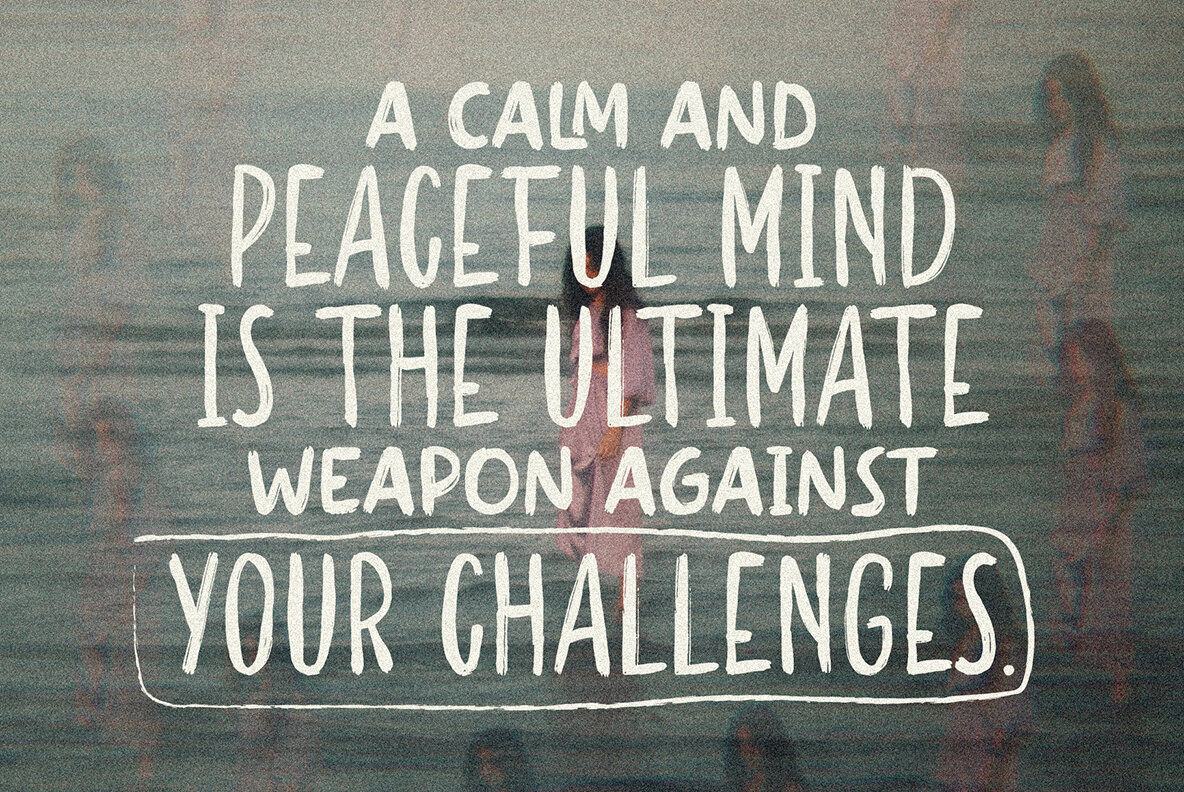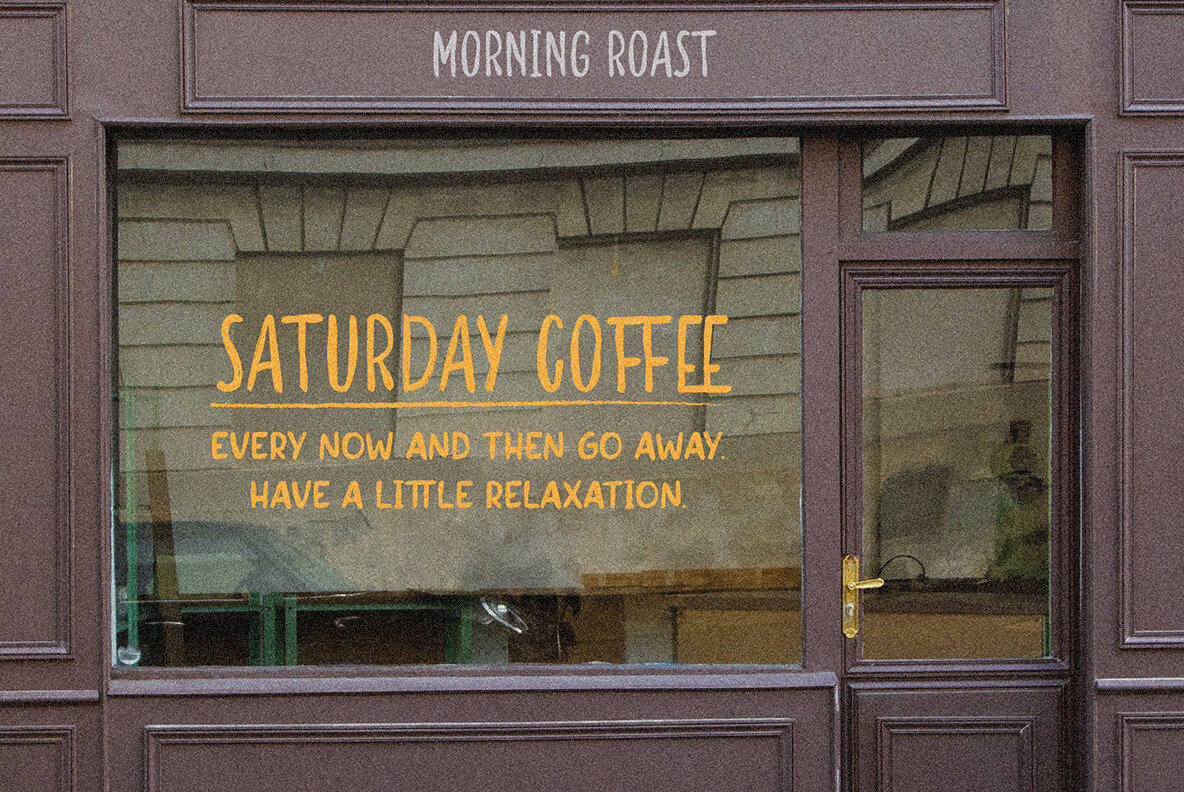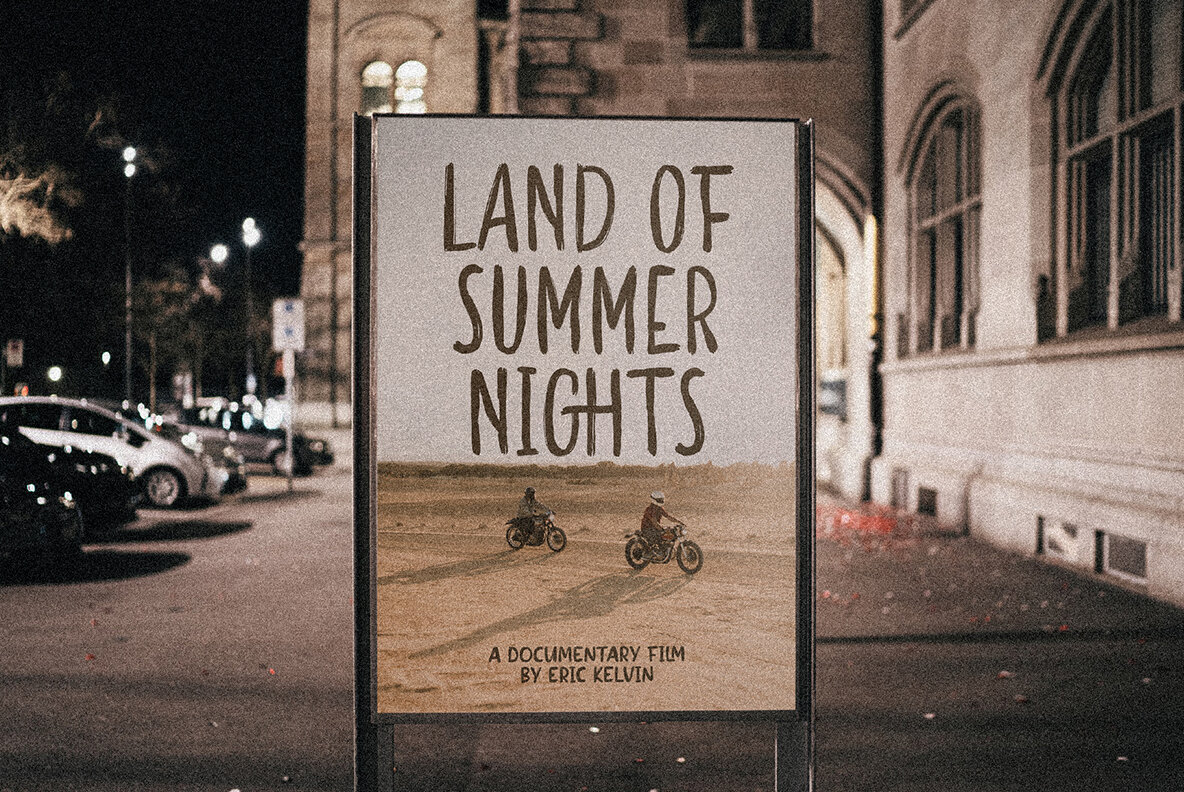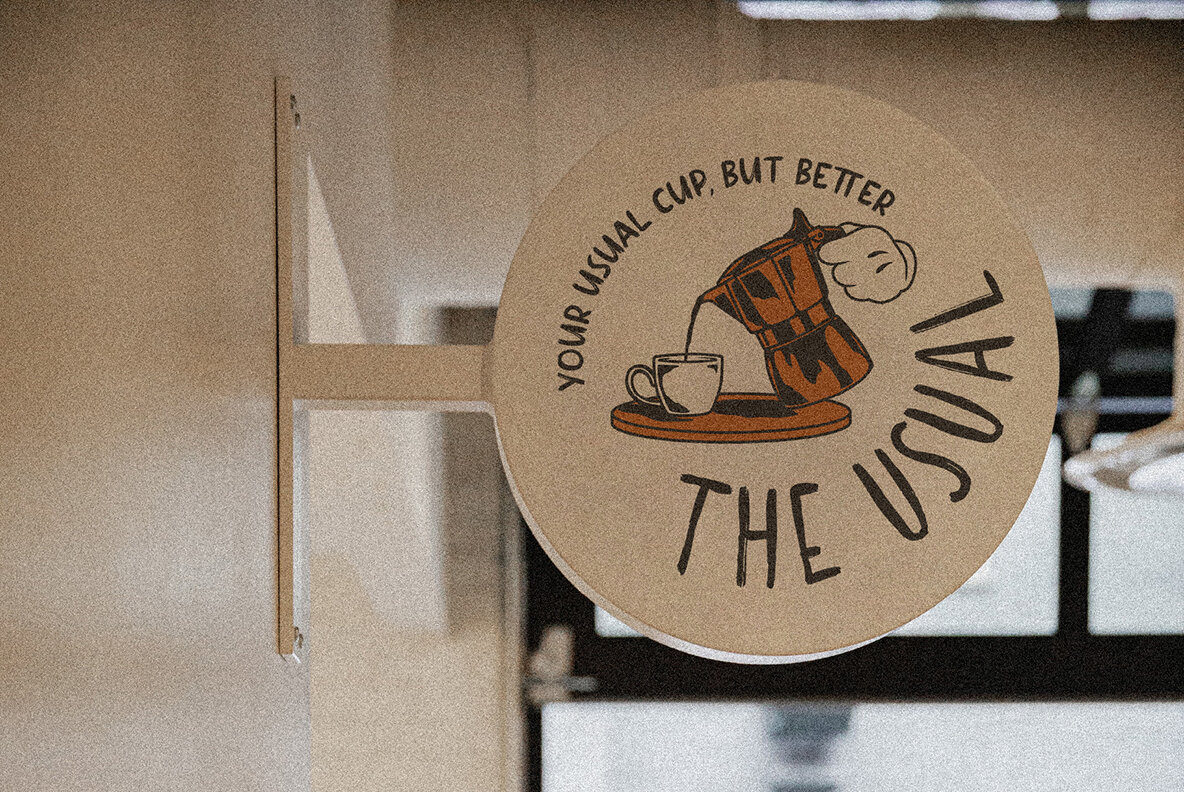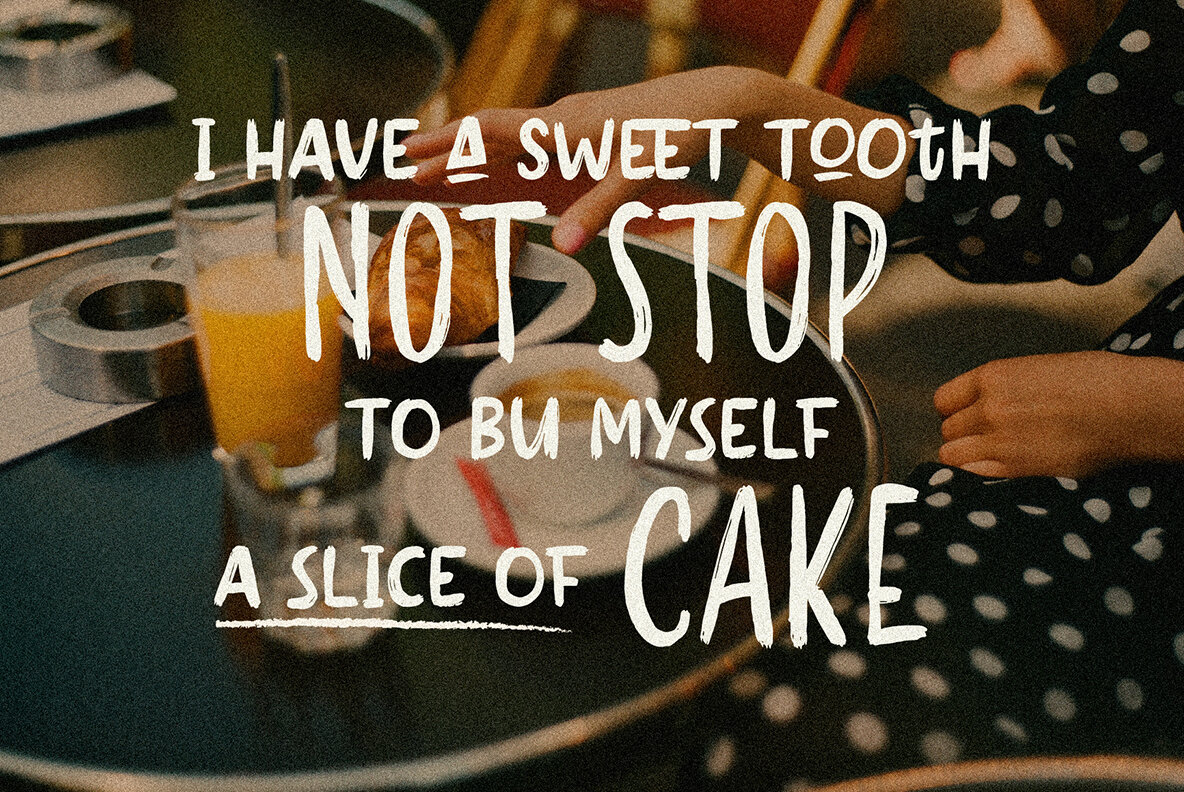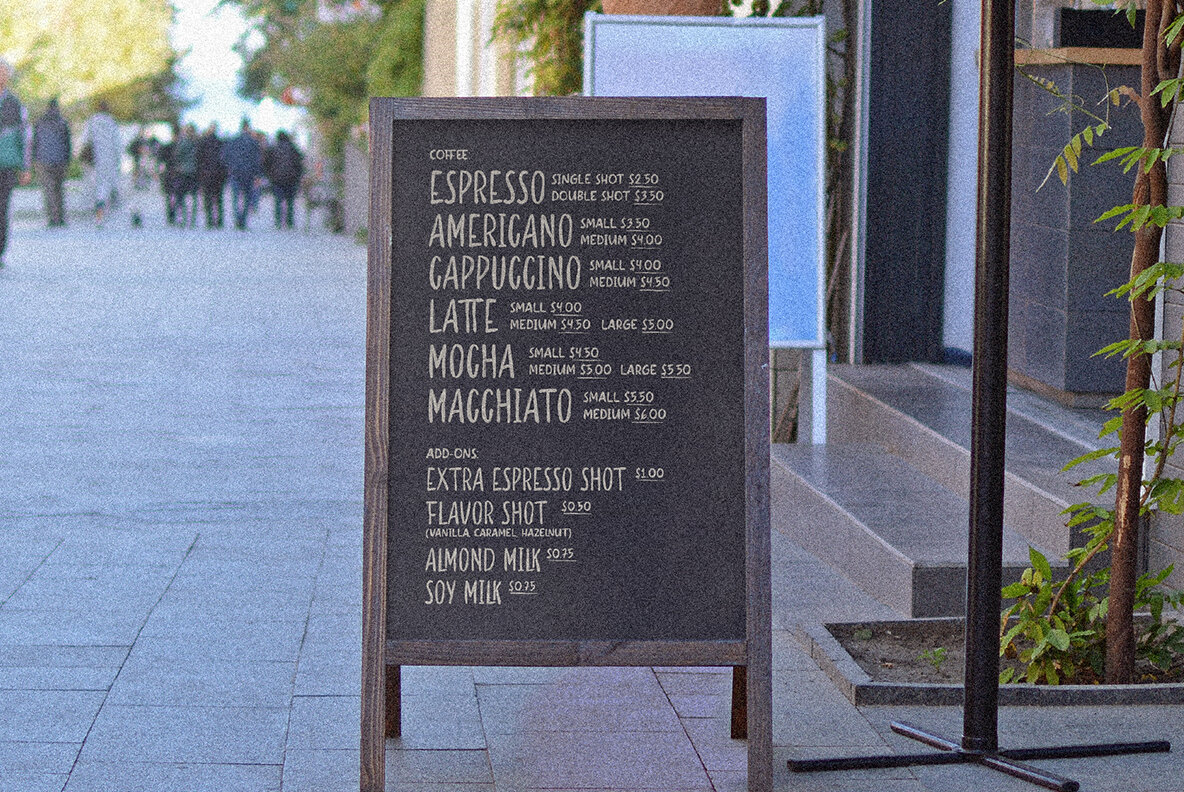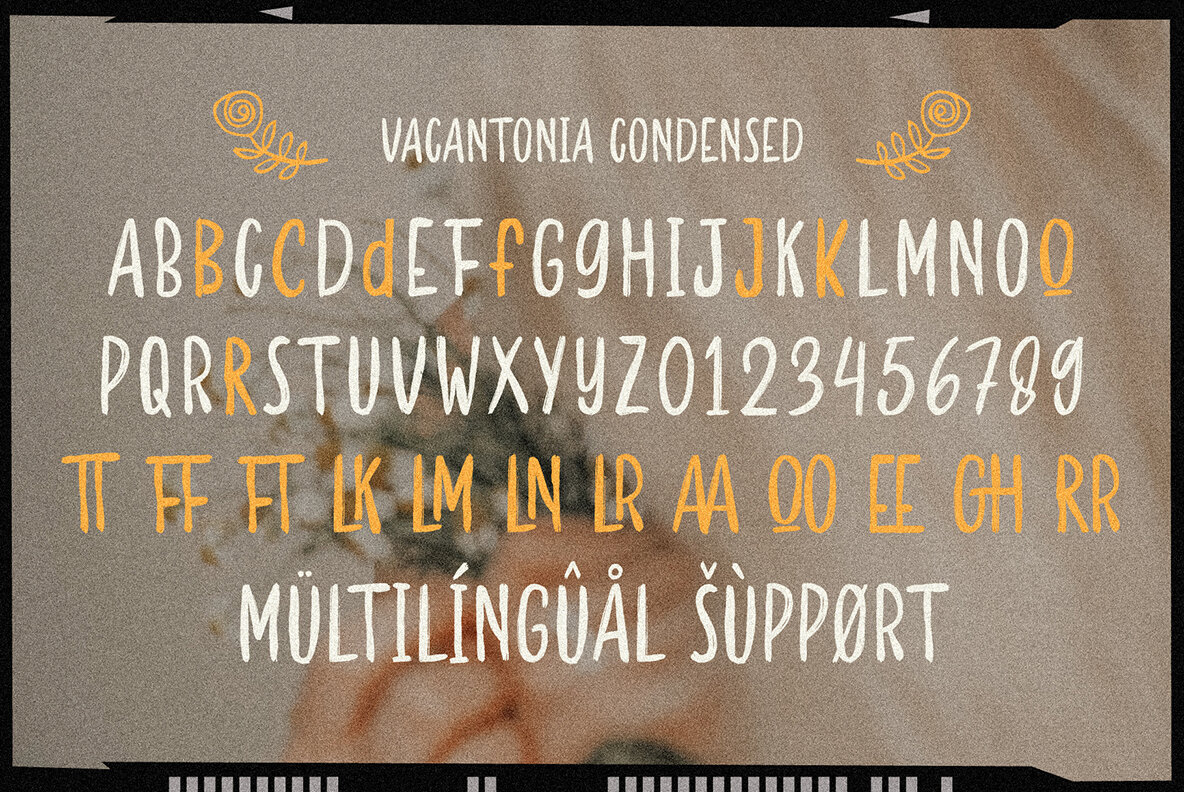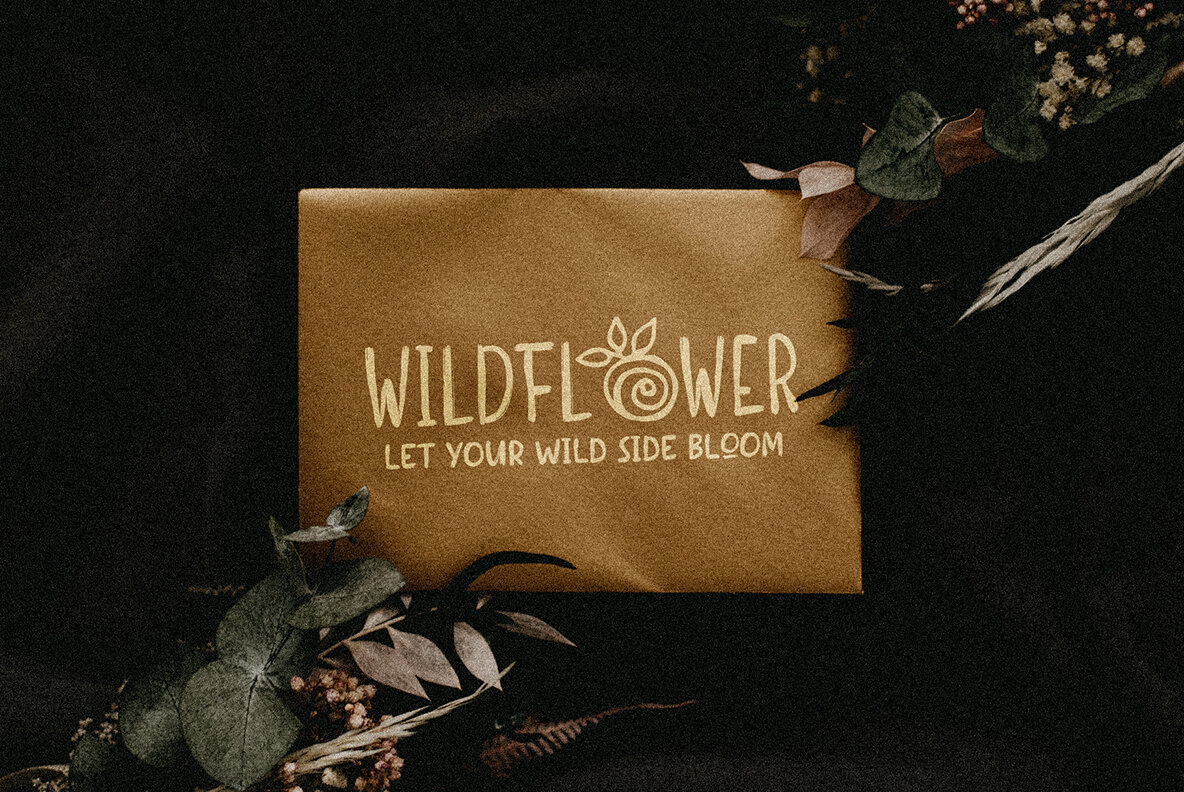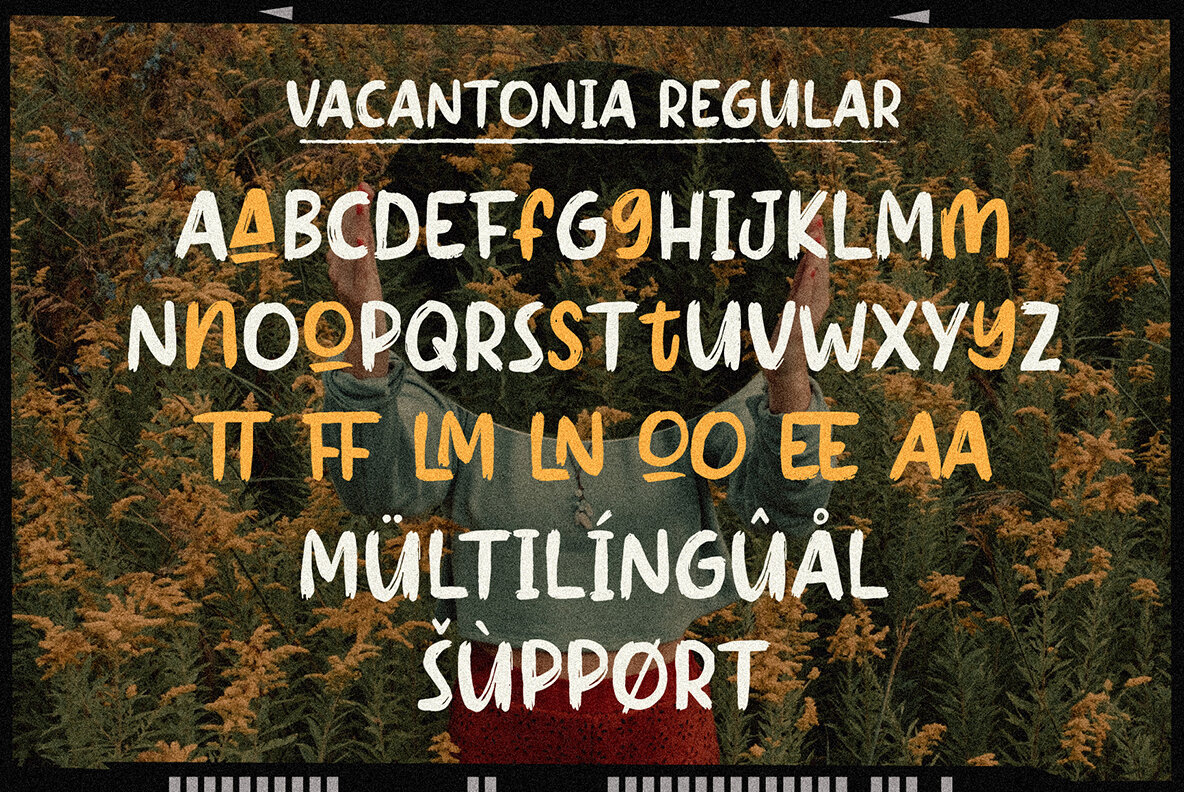
Vacantonia Font
Vacantonia is a brush display font pairing with regular and condensed fonts. With its all-caps style, Vacantonia is perfect for creating aesthetic quotes, logos, posters, and anything that needs a bold and impactful look. Its vintage retro style adds a touch of nostalgia and adventure vibes to any project.
In addition to its striking style, Vacantonia also features Latin Multilingual Support, alternate characters, and ligatures, making it even more versatile for any project. Its brush style gives it a unique and handcrafted feel, making it perfect for creating a personalized and customized look.